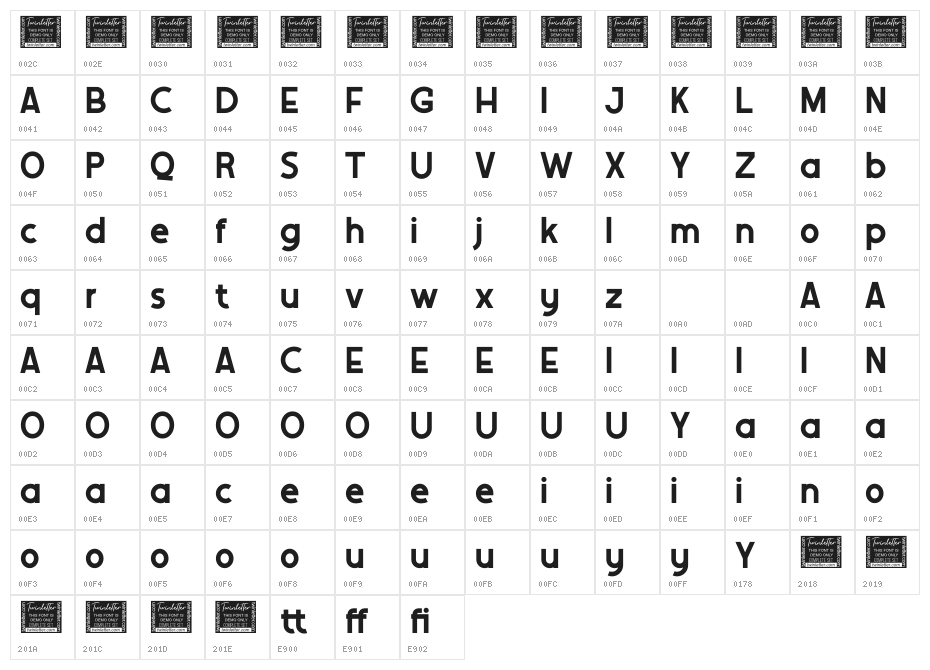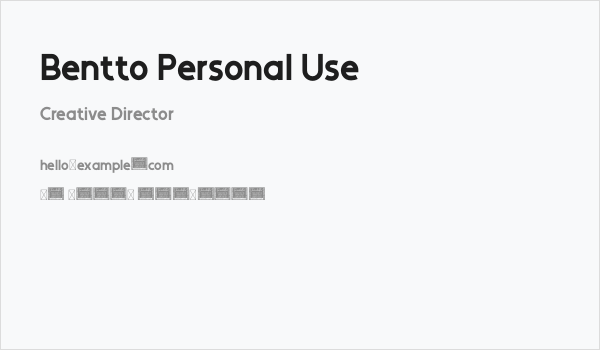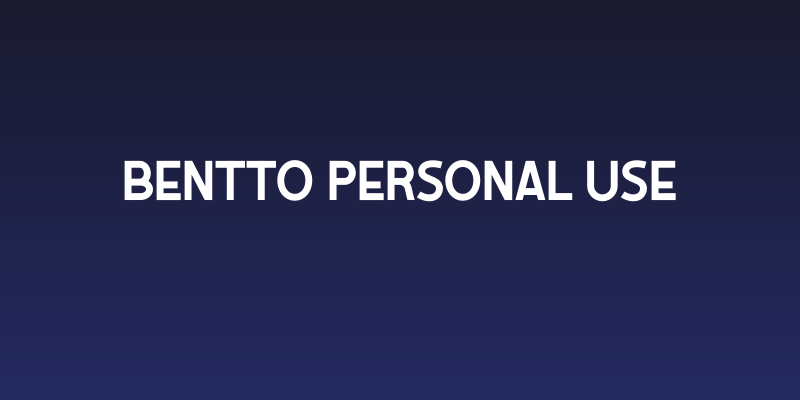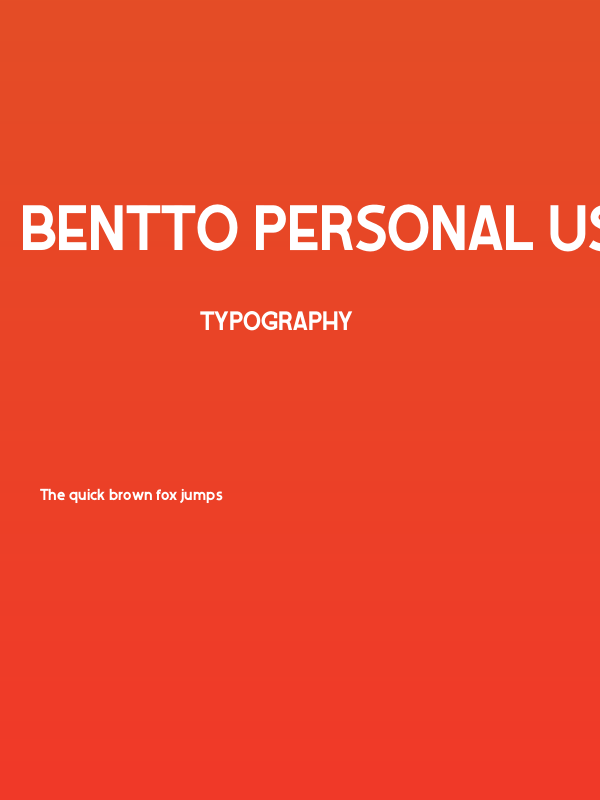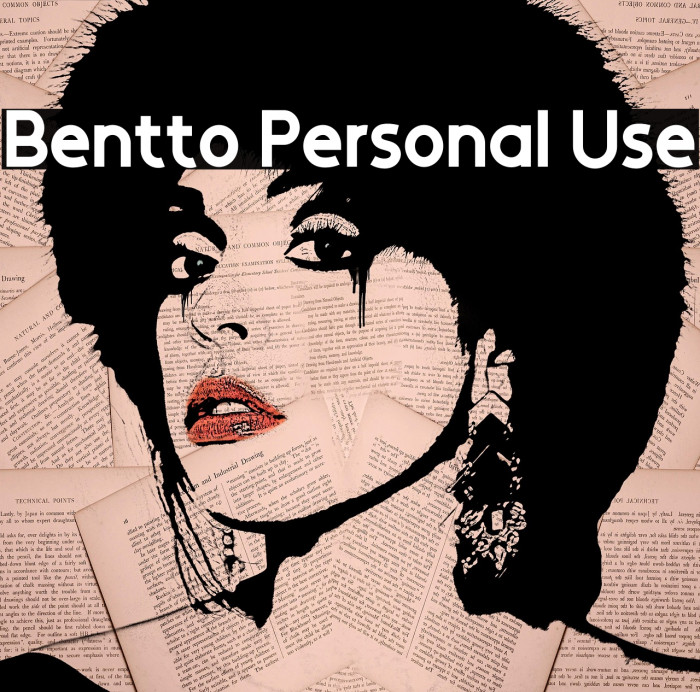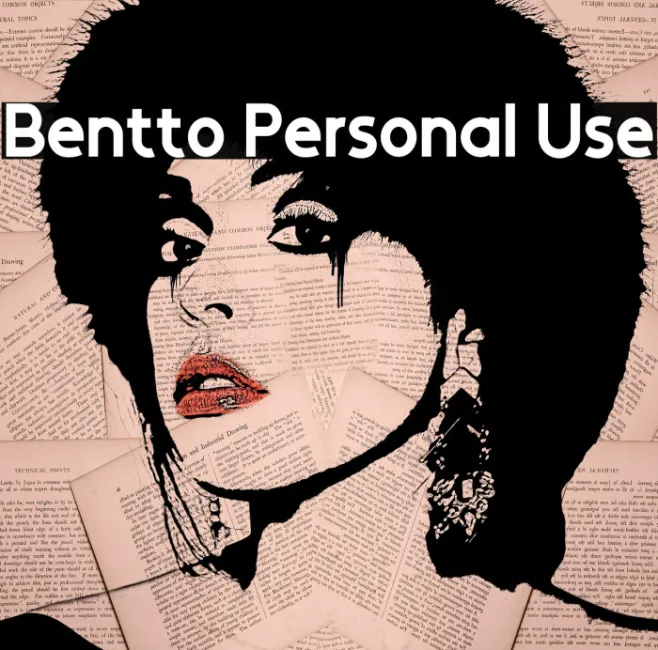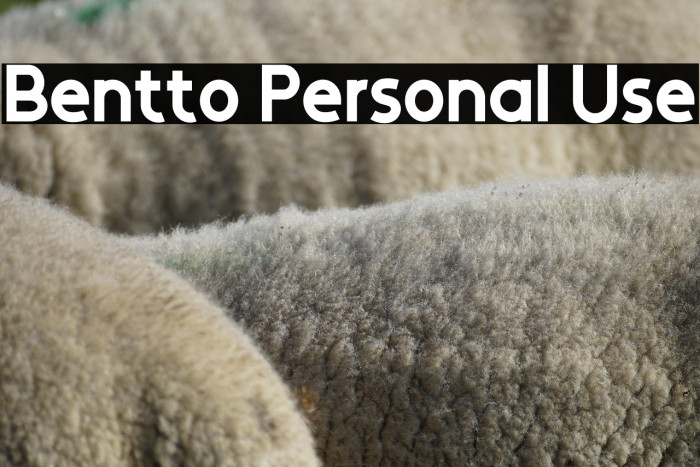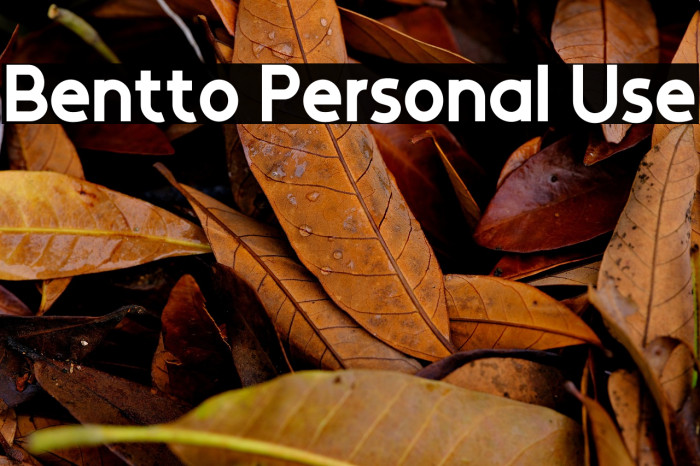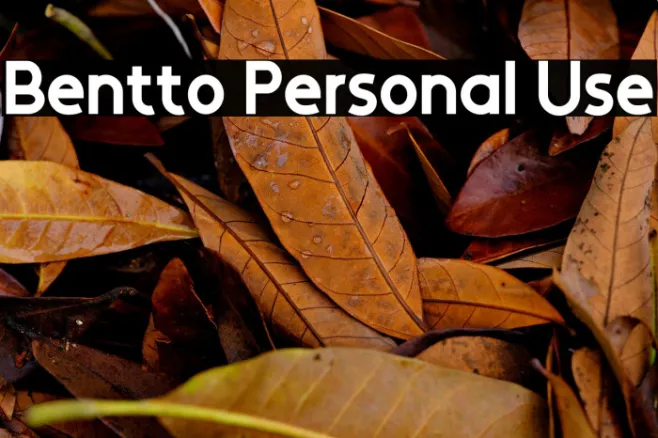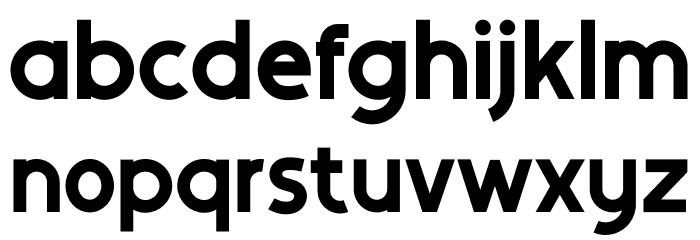
Bentto Personal Use Font
Bentto Personal Use Description
This font features a bold and modern sans-serif style with clean, geometric lines and a strong presence. The uppercase and lowercase letters are well-balanced, with consistent stroke widths that convey a sense of stability and professionalism. The characters are slightly rounded, adding a touch of friendliness to the overall design. The font maintains a uniform appearance, making it suitable for a variety of applications where clarity and impact are essential. Its simplicity and elegance make it versatile for both digital and print media.
| Proposed Projects | Ideal for branding, advertising, headlines, and digital content where a strong, modern look is desired. |